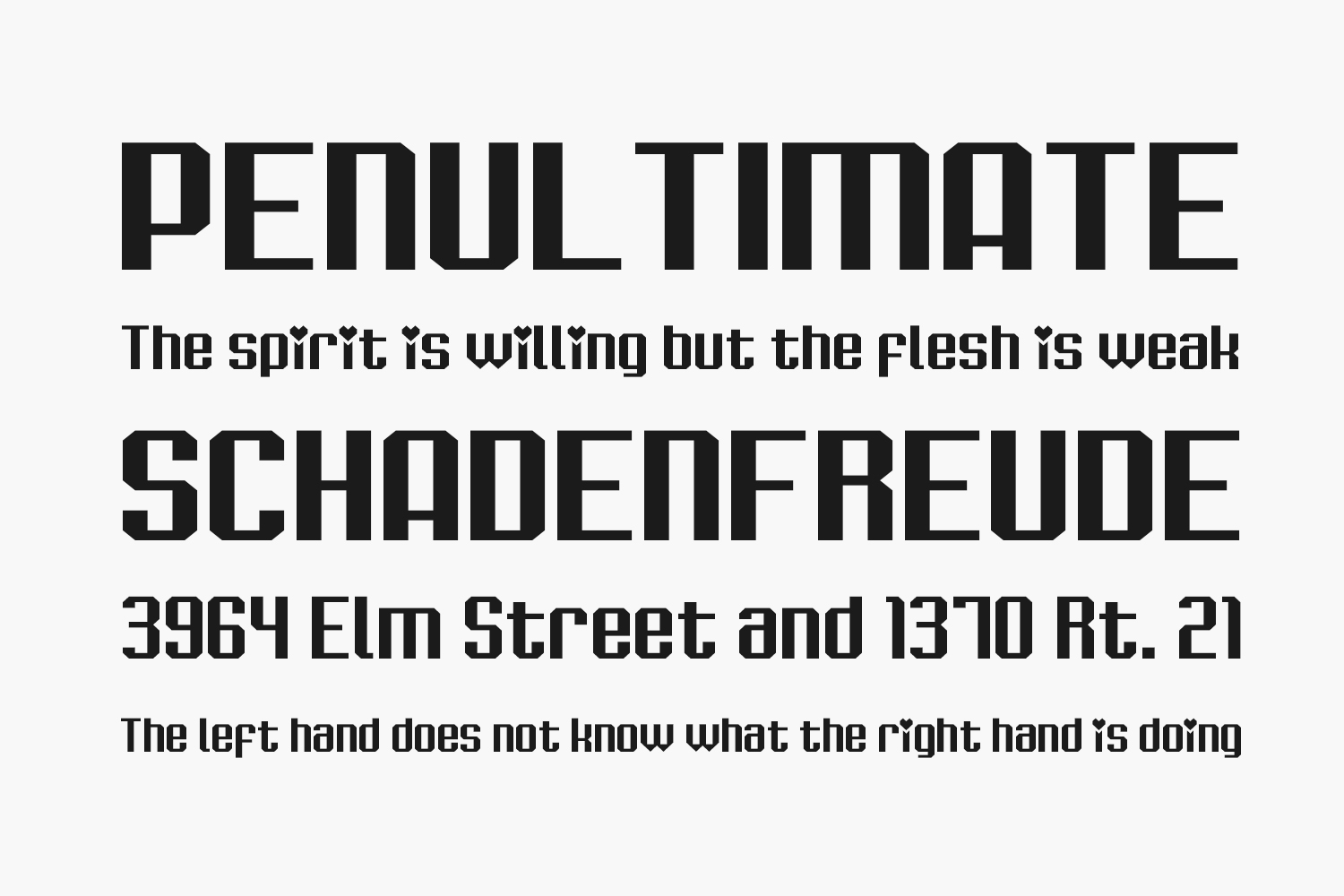
Chiptune Valentine Free Font is playful and nostalgic sans serif font that pays homage to the 8-bit era of video games. Its blocky, pixelated letters evoke memories of classic arcade games and retro consoles. The font’s unique and quirky design makes it perfect for creating eye-catching headlines and titles, as well as for use in projects related to gaming, technology, and pop culture. The Chiptune Valentine font is a fun and creative way to add a touch of nostalgia to any design project.